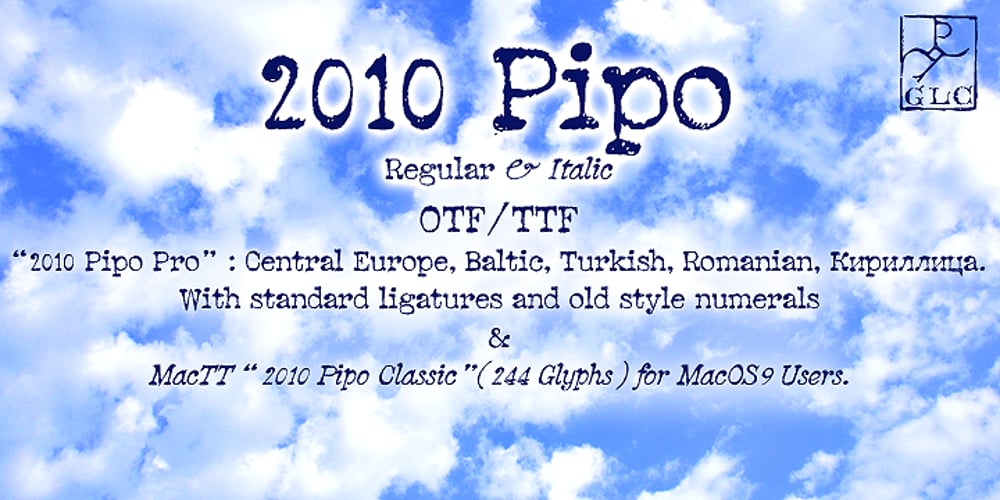
2010 Pipo Font Family was designed by Gilles Le Corre and published by GLC. 2010 Pipo contains 2 styles and family package options. This font is a looking like manual slab serif patern. The “Pro” version is containing West (including Celtic) and North European, Icelandic, Baltic, Eastern, Central European, Turquish and Cyrillic specific characters, plus old style numerals and standard ligatures. The “Classic” version is available for Mac OS9 users, naturally limited to the usual 244 characters.